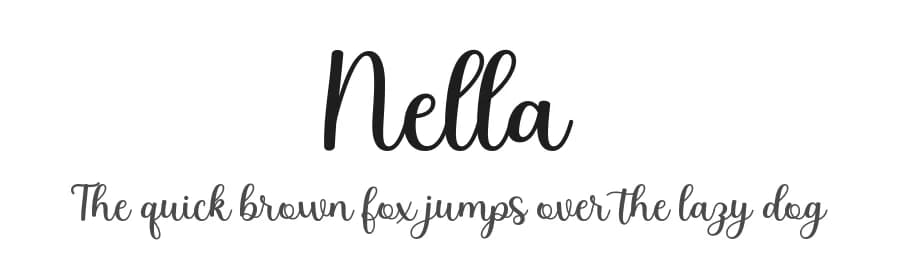
About Nella Font
Nella Specifications
| Font Family | Nella |
| Full Name | Nella |
| Glyph Count | 230 glyphs |
| PostScript Name | Nella |
| Designer | Haikal Juanda |
Nella Font is a script font that shines as a display or heading face. Pair it with a clean sans-serif or serif font for body text β the contrast creates a clear hierarchy while the two styles stay balanced and easy to read.
Nella Font
by Pista Mova